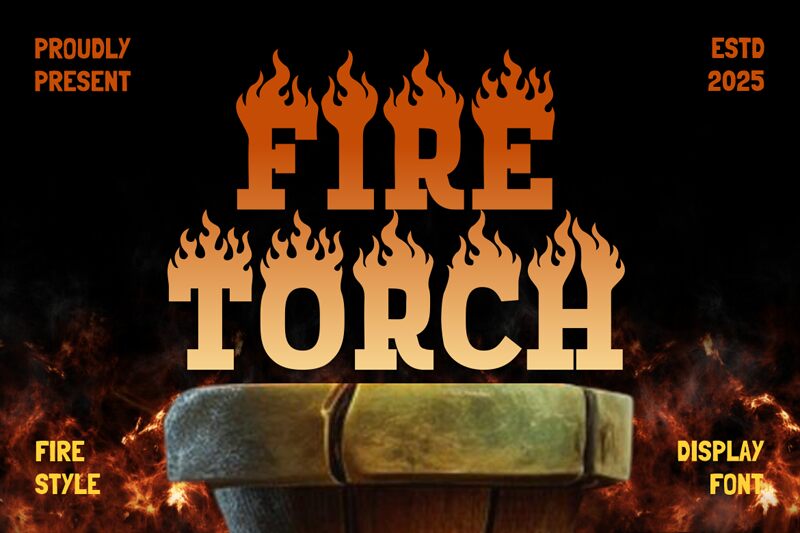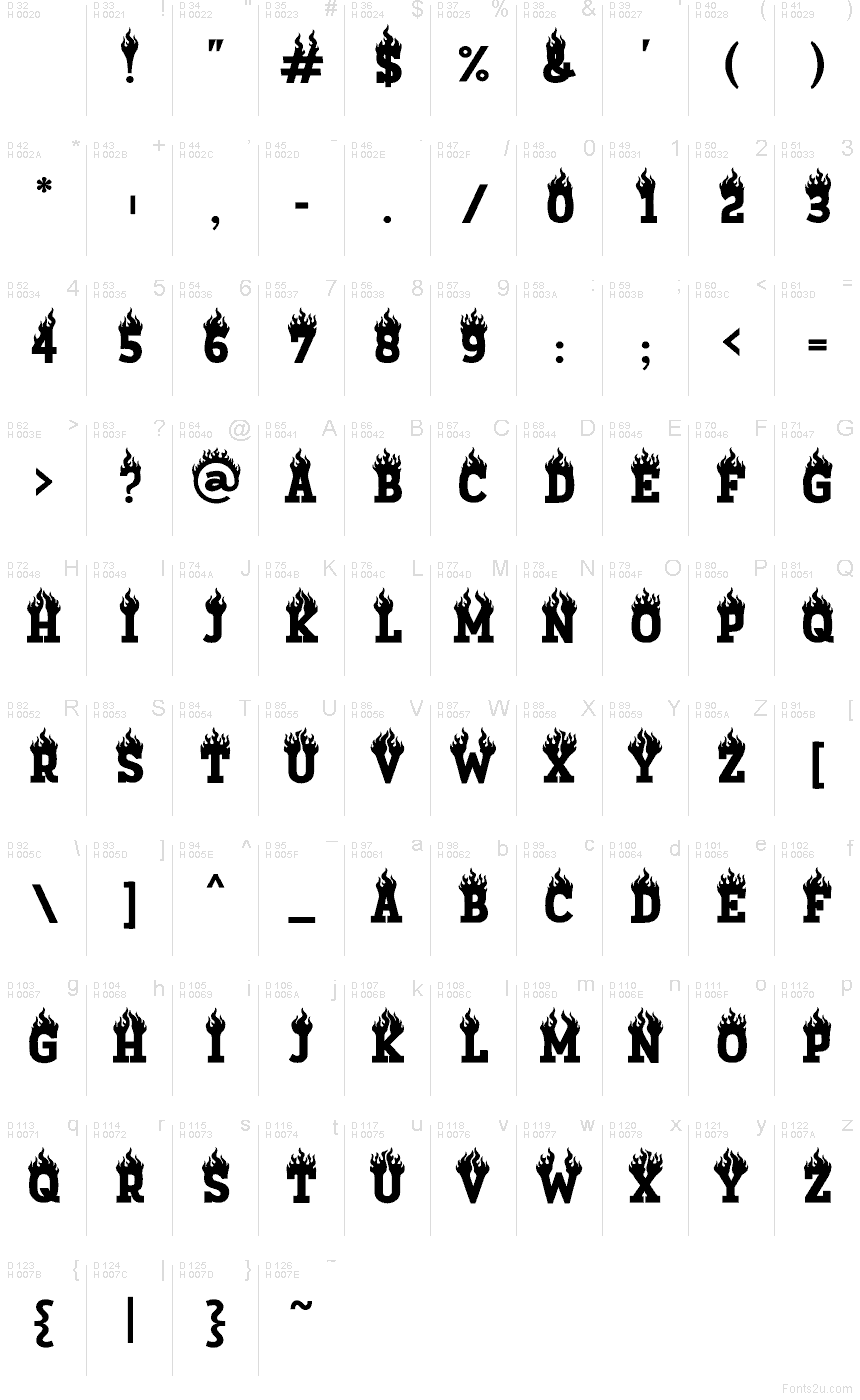
Fire Torch by Shanaf Studio is a free flame-topped caps display font with a blunt, poster-like weight and a row of fire licking off every letter. The letters feel cut from solid blocks, then set alight, which gives the font a loud novelty look that leans horror, Halloween, and hot-rod showcard rather than generic decoration.
It fits branding for barbecue joints, hot sauce labels, haunted event flyers, gaming stream graphics, and merch where a short word needs that burning silhouette to carry the idea fast. As a free font, it also makes sense for title cards, cover lines, and monograms, especially when you want the fire motif to do most of the talking.